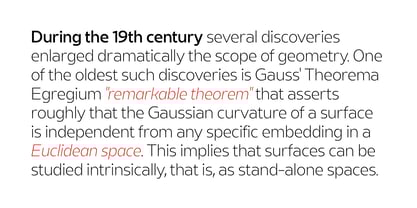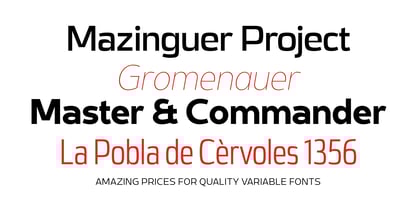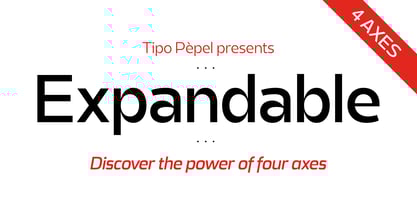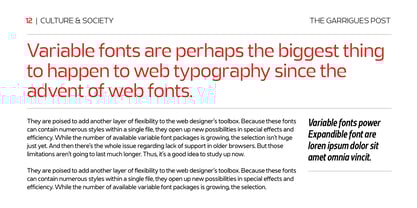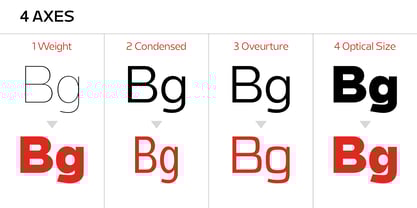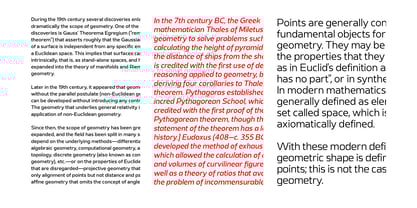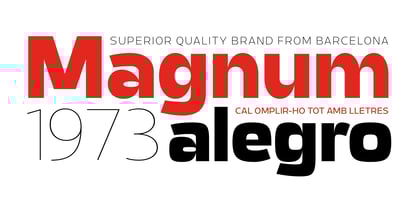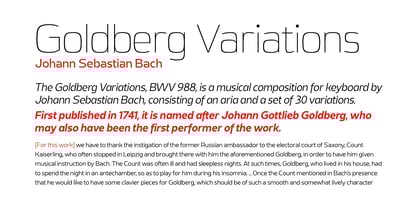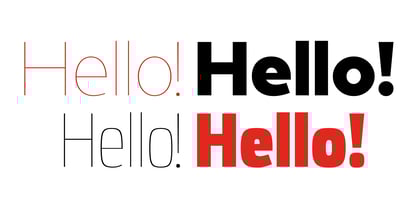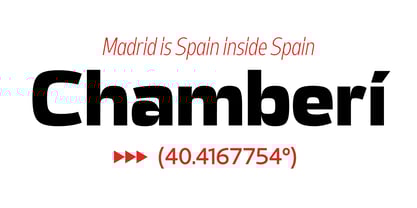
Expandable
by Tipo Pèpel
The Expandable Font Family was designed by Josep Patau and published by Tipo Pèpel. Expandable contains 114 styles and family package options.
A four-axis variable typeface family that explores the full spectrum of width, weight, aperture, and shaft contrast. Rooted in geometric neutrality, its structure ensures resilience even under extreme variations. The generous apertures stand out at first glance, while the refined contrasts in the joints lend the design a distinctive and unmistakable character—one that elevates the visual presence of any project. Indifference, quite simply, is not an option with this font. Conceived to capture attention, this family shines in impactful headlines yet remains equally reliable in continuous text. It offers versatility for professionals who seek both expressive display power and effortless usability straight out of the default version.